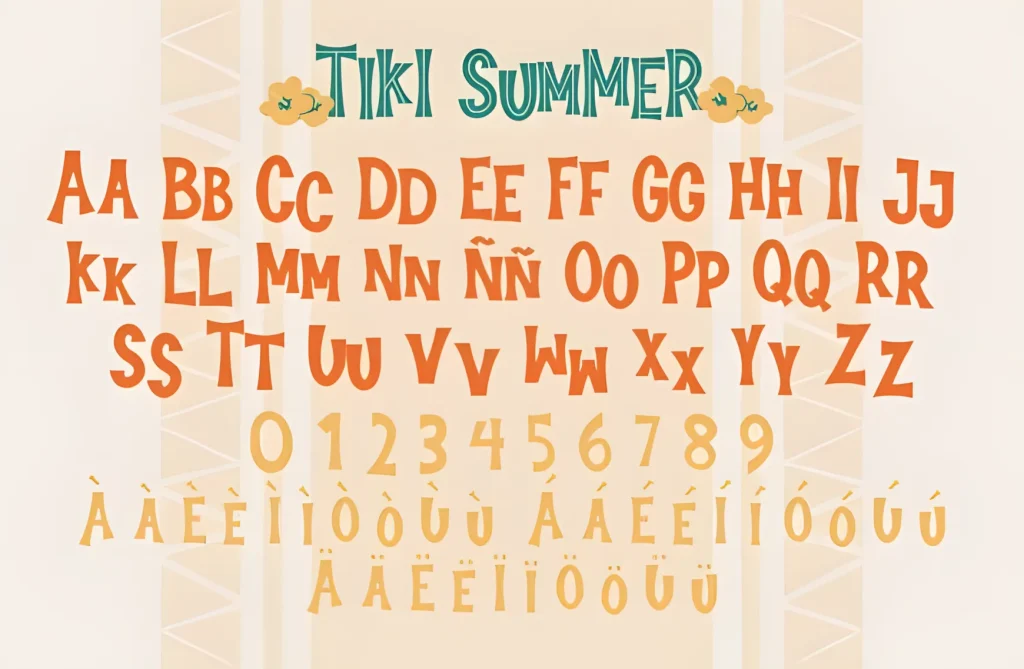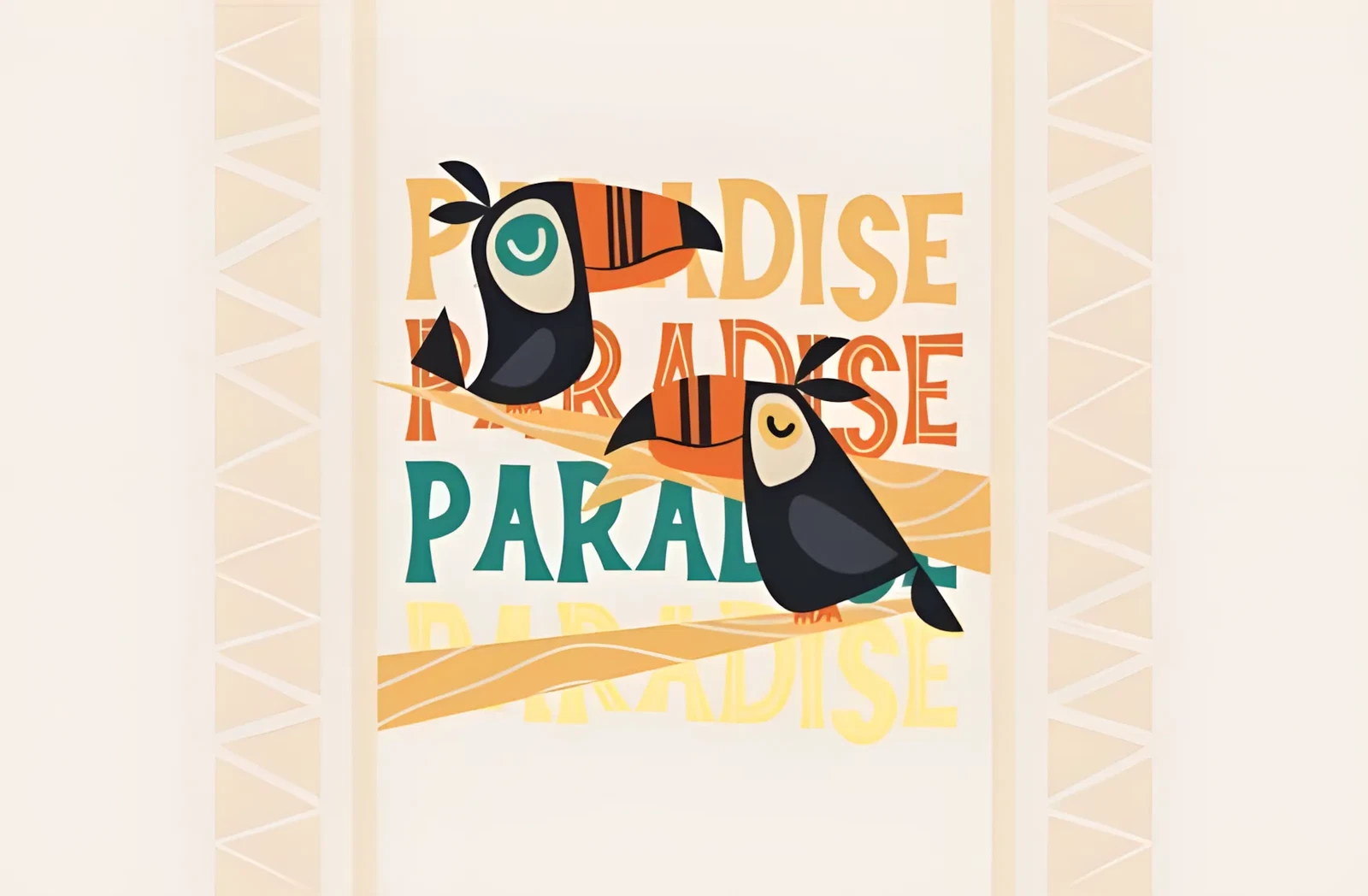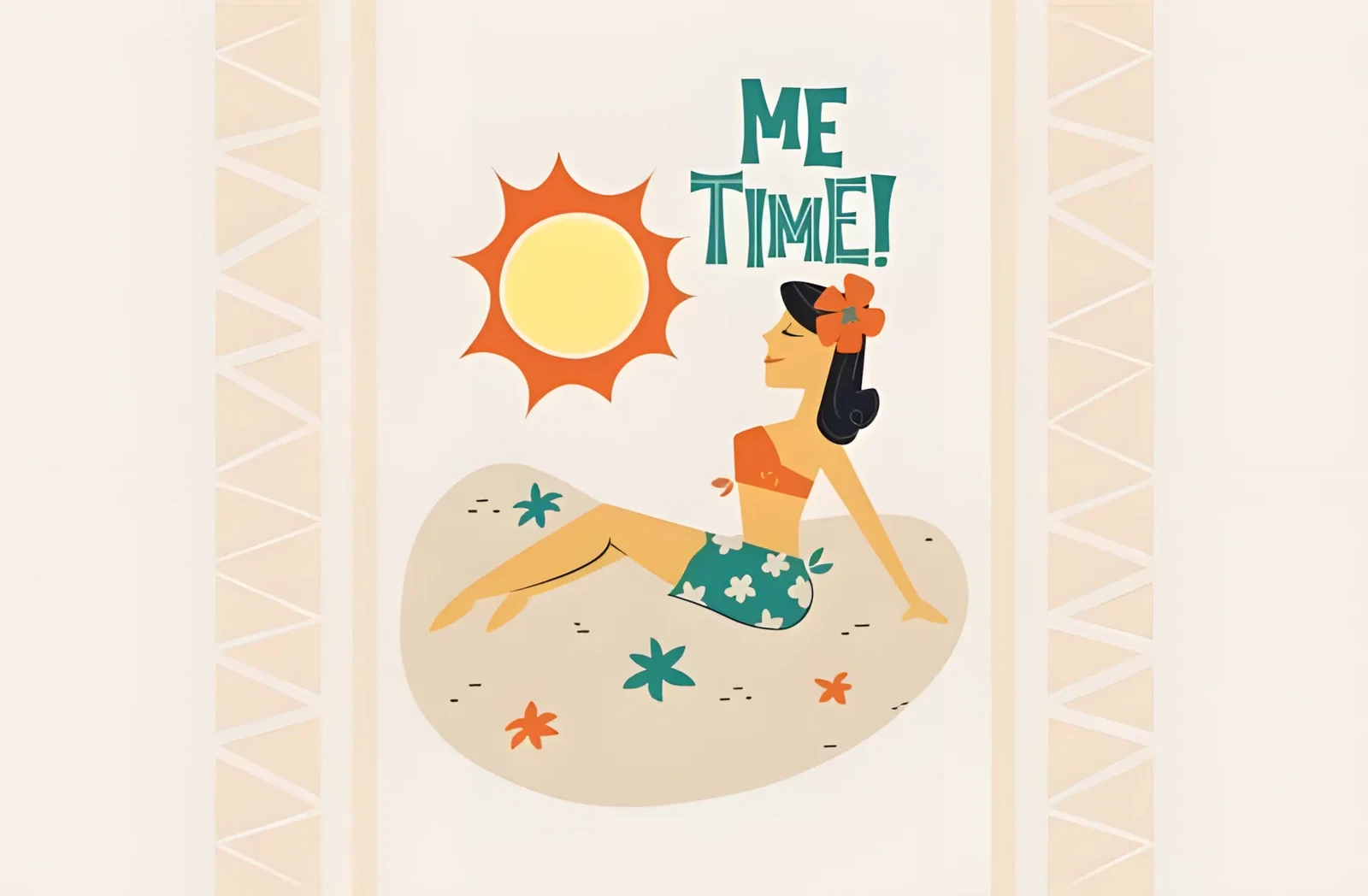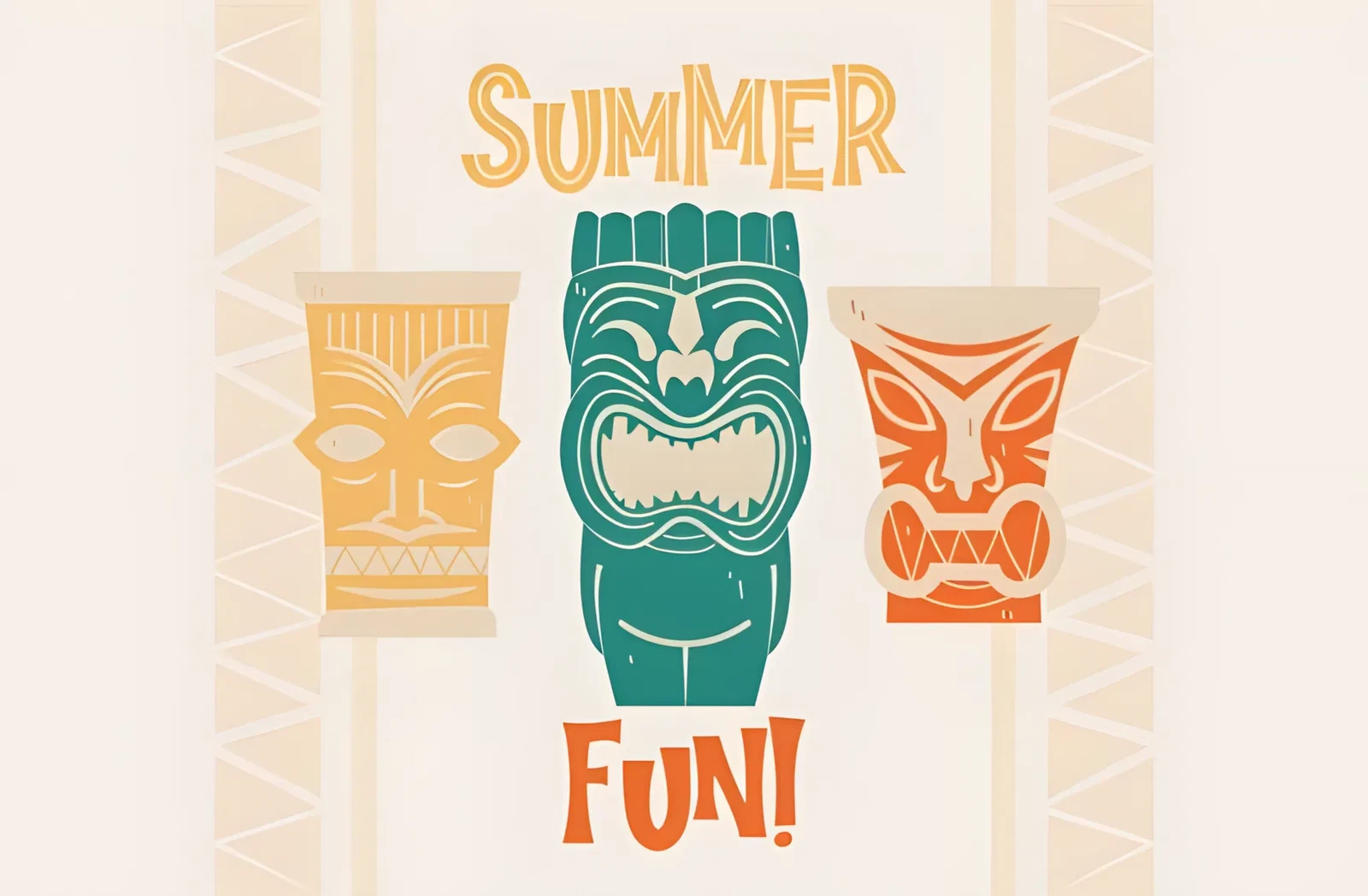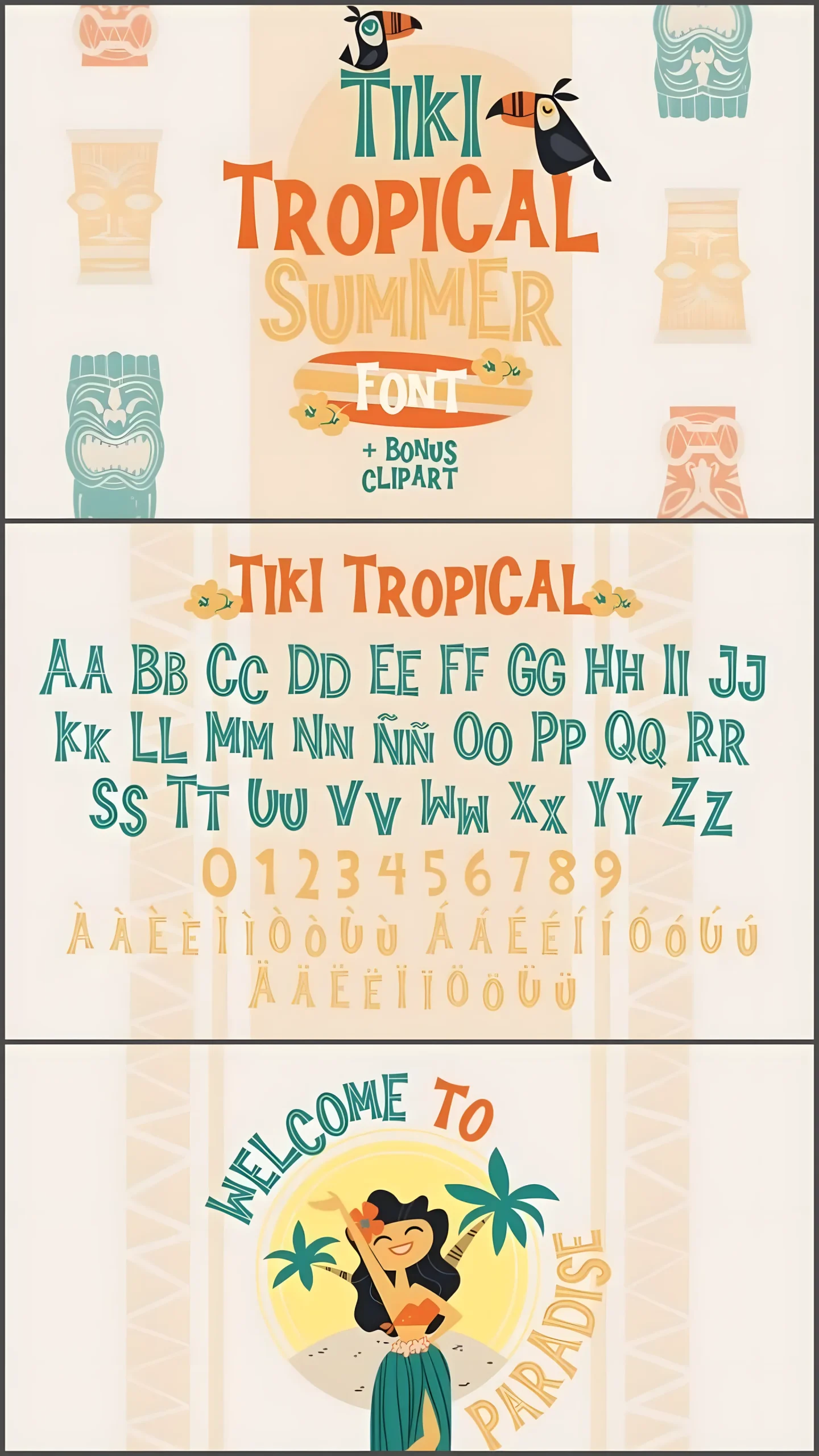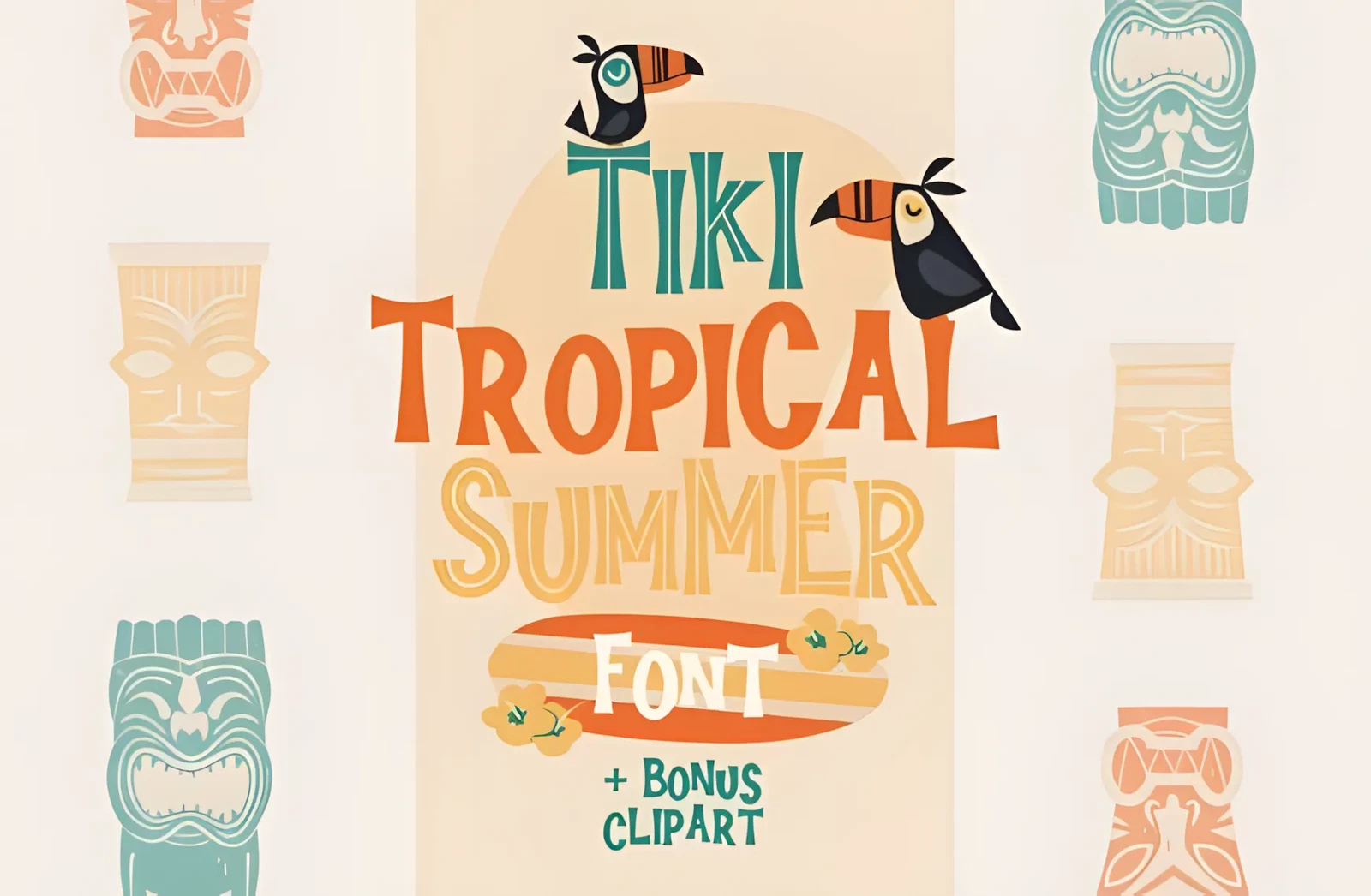
Some fonts instantly transport you into a specific mood. Tiki Tropical Summer Font does exactly that. It brings together tropical energy, mid-century retro vibes, and playful summer aesthetics, creating a typeface that feels relaxed, sunny, and full of character.
This font was clearly designed for warm-weather visuals. From beach-inspired graphics to vacation-themed branding, it delivers personality without sacrificing readability. The result is a display font that feels expressive, nostalgic, and genuinely fun to work with.
Visual Style and First Impression
Tiki Tropical Summer Font immediately stands out with its bold, hand-crafted look. The letterforms feel organic and slightly irregular, giving the font a relaxed, laid-back personality. There is a strong retro influence, inspired by mid-century design and classic tropical signage.
The shapes are chunky but balanced, which keeps the text readable even at larger sizes. Decorative details are subtle enough not to overwhelm the design, yet distinct enough to make the font memorable.
The first impression is playful, sunny, and unmistakably summer-themed.
A Retro Tropical Typeface With Personality
This font is not minimal or neutral by design. Tiki Tropical Summer Font leans into character and atmosphere. It feels inspired by:
- tropical vacations
- beach bars and tiki culture
- retro summer posters
- mid-century modern aesthetics
The font includes two complementary styles — a solid version and an inline version — which allows designers to create contrast and hierarchy while keeping a consistent visual identity.
This duo approach makes the font flexible without losing its core personality.
Designed for Summer-Themed Projects
Tiki Tropical Summer Font naturally fits projects that aim to feel relaxed, cheerful, and seasonal. It works especially well in designs related to:
- summer events
- beach parties
- tropical branding
- vacation promotions
Even short words set in this font immediately suggest warmth, sunshine, and leisure. That makes it effective for designs where mood matters as much as information.
Practical Design Applications
Posters, Flyers, and Event Graphics
One of the strongest use cases for this font is promotional design. Posters and flyers benefit from its bold shapes and retro charm.
It works well for:
- summer event posters
- festival flyers
- beach party invitations
- seasonal announcements
The font draws attention quickly while remaining legible from a distance.
Branding and Logos
Tiki Tropical Summer Font can also be used in branding, especially for businesses connected to travel, leisure, or hospitality. Logos created with this typeface feel friendly and approachable rather than corporate or rigid.
It fits naturally into:
- beach cafés and bars
- vacation rentals
- travel-related brands
- lifestyle projects
The inline version adds extra visual interest when used sparingly in logo marks or headlines.
Apparel, Merchandise, and Print-on-Demand
The bold structure of the font makes it suitable for physical products. It translates cleanly to:
- t-shirts
- tote bags
- mugs
- stickers
Because the letterforms are thick and well-defined, they work reliably in printing, vinyl cutting, and sublimation workflows.
Social Media and Digital Content
On digital platforms, Tiki Tropical Summer Font performs especially well. Its playful shapes stand out on screens and pair nicely with colorful imagery.
It works well for:
- social media posts
- digital banners
- thumbnails
- summer promotions
The font helps content feel casual and engaging rather than overly polished.
Readability and Usage Notes
Although expressive, Tiki Tropical Summer Font remains readable. The spacing and proportions are well-balanced, which allows text to stay clear at different sizes.
As a display font, it works best for:
- headlines
- titles
- short phrases
- featured text
For longer text blocks, pairing it with a simple sans-serif font helps maintain balance and readability.
Emotional Tone and Design Feel
The emotional tone of Tiki Tropical Summer Font is relaxed, cheerful, and nostalgic. It feels fun without being childish and expressive without becoming chaotic.
This makes it ideal for designs that aim to communicate:
- joy
It is not intended for body text, but as a display font, it delivers exactly the level of personality it promises.
Tiki Tropical Summer Font captures the essence of summer in typographic form. With its retro influence, tropical mood, and playful structure, it offers designers a clear way to communicate warmth and fun through text.
For projects that need to feel relaxed, vibrant, and visually memorable, this font provides a strong and versatile solution. Used thoughtfully, Tiki Tropical Summer Font brings sunshine, nostalgia, and personality into any design.